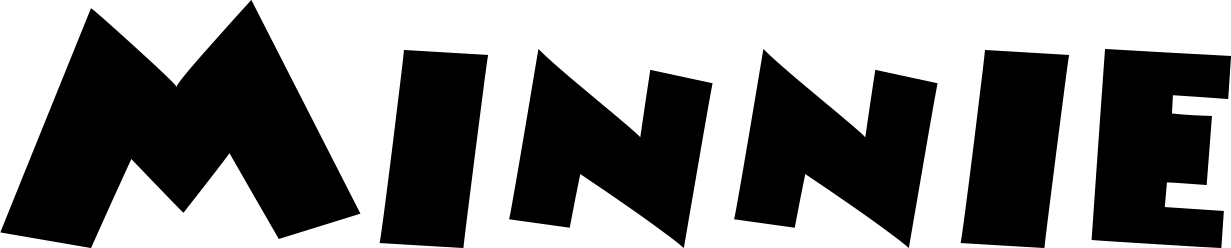
Minnie Font
Minnie from the cartoon font family is a playful font that kind of seems like a cute child hopping and skipping! It has an amazing arrangement of characters tilting to the sides. Each one seems bold, cheerful, and catchy…
Minnie from the cartoon font family is a playful font that kind of seems like a cute child hopping and skipping! It has an amazing arrangement of characters tilting to the sides. Each one seems bold, cheerful, and catchy.
You’re going to add the same kinds of vibes to your project like the ones you get from this fat sans serif font when you apply it. It can be a cartoon, video game, comic book, print T-shirt, or anything!
Minnie Font